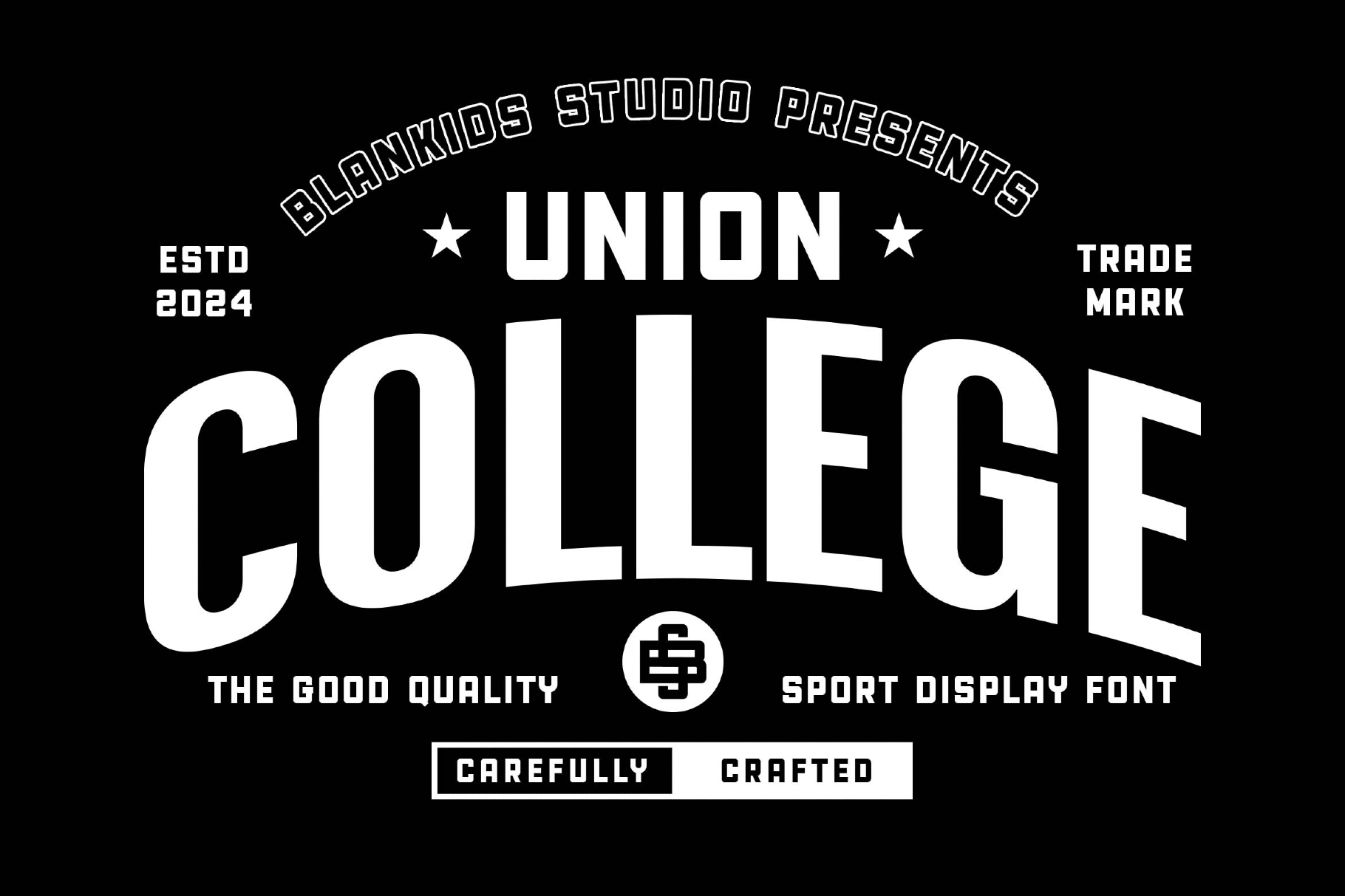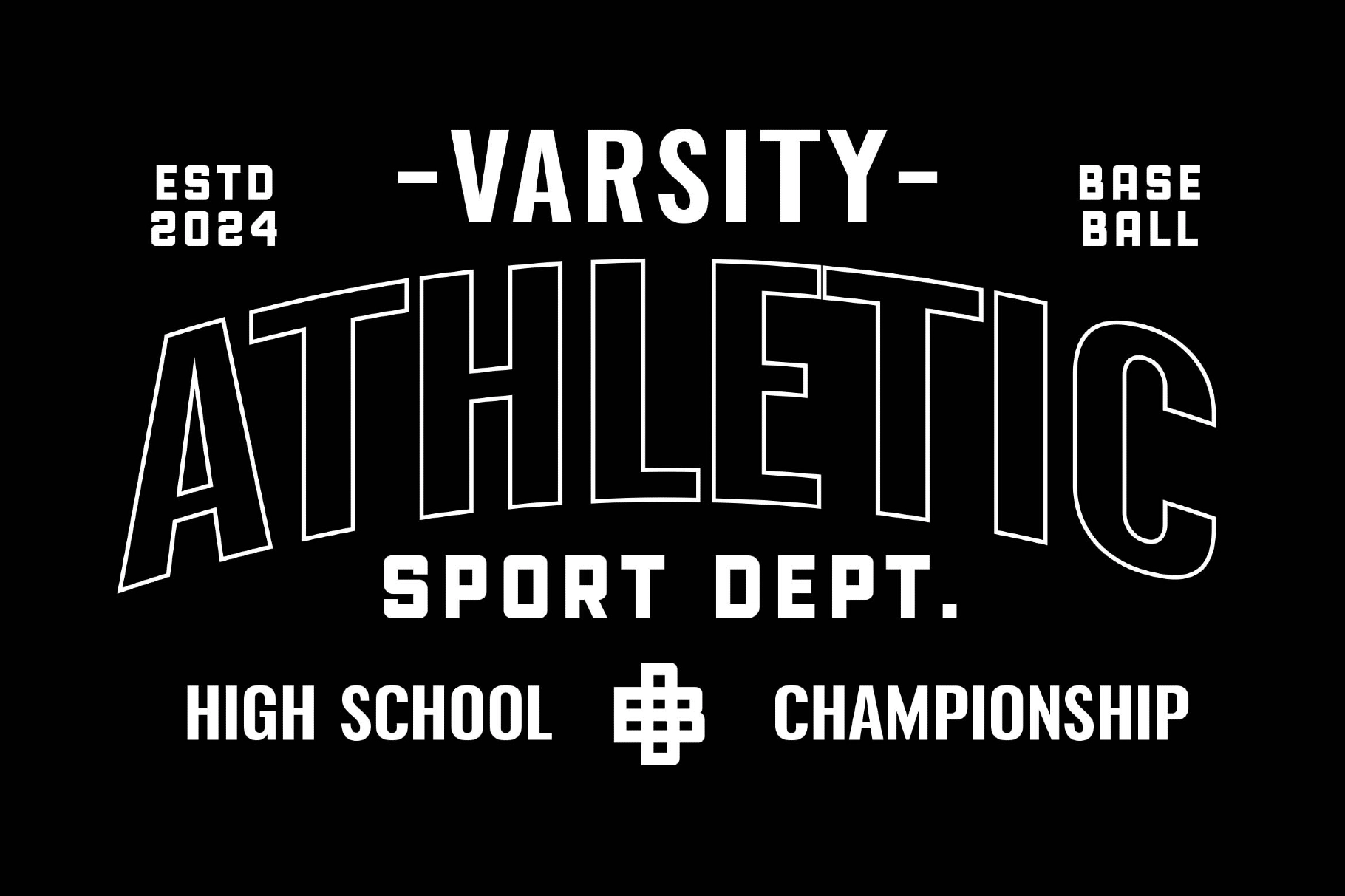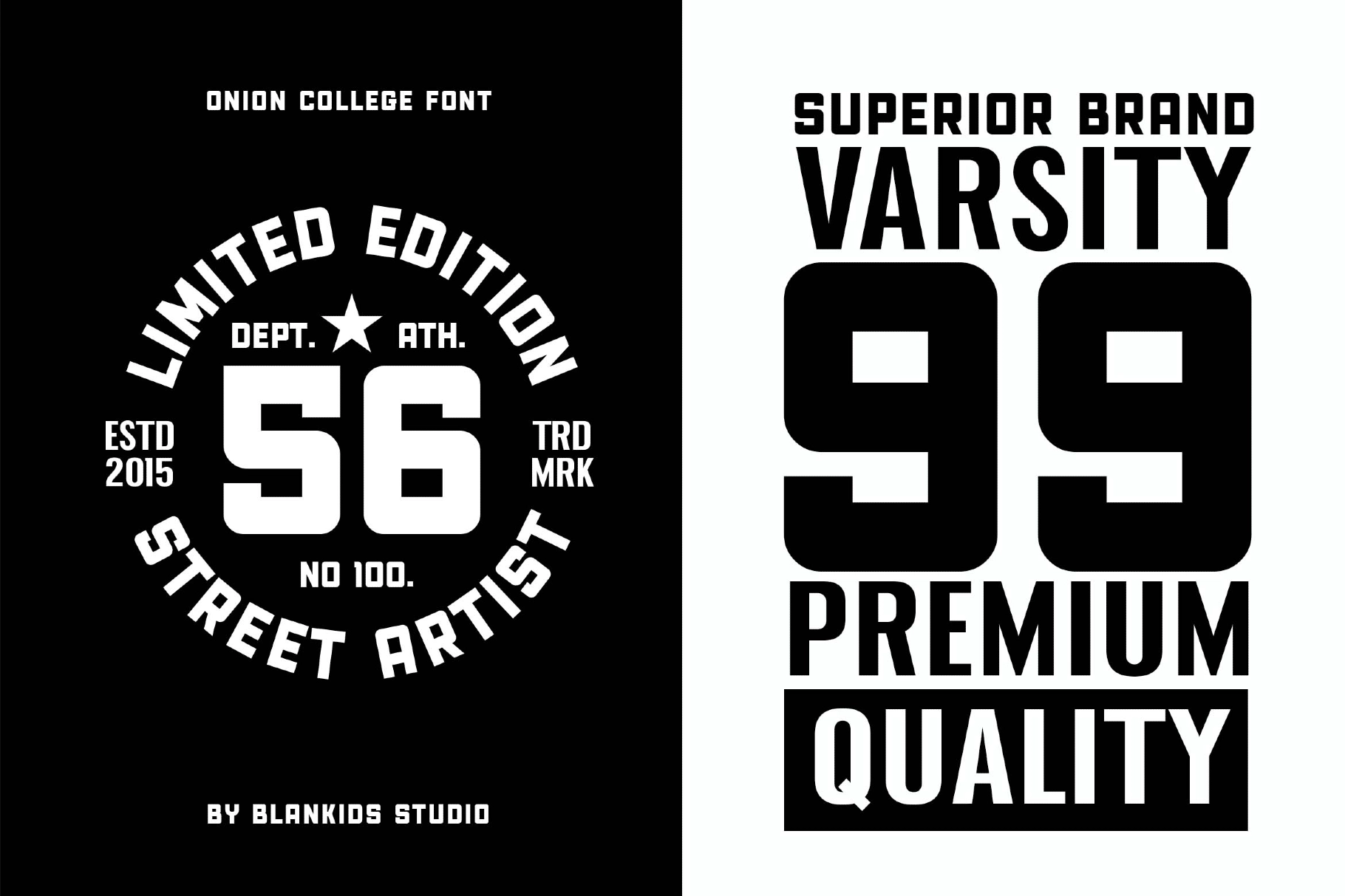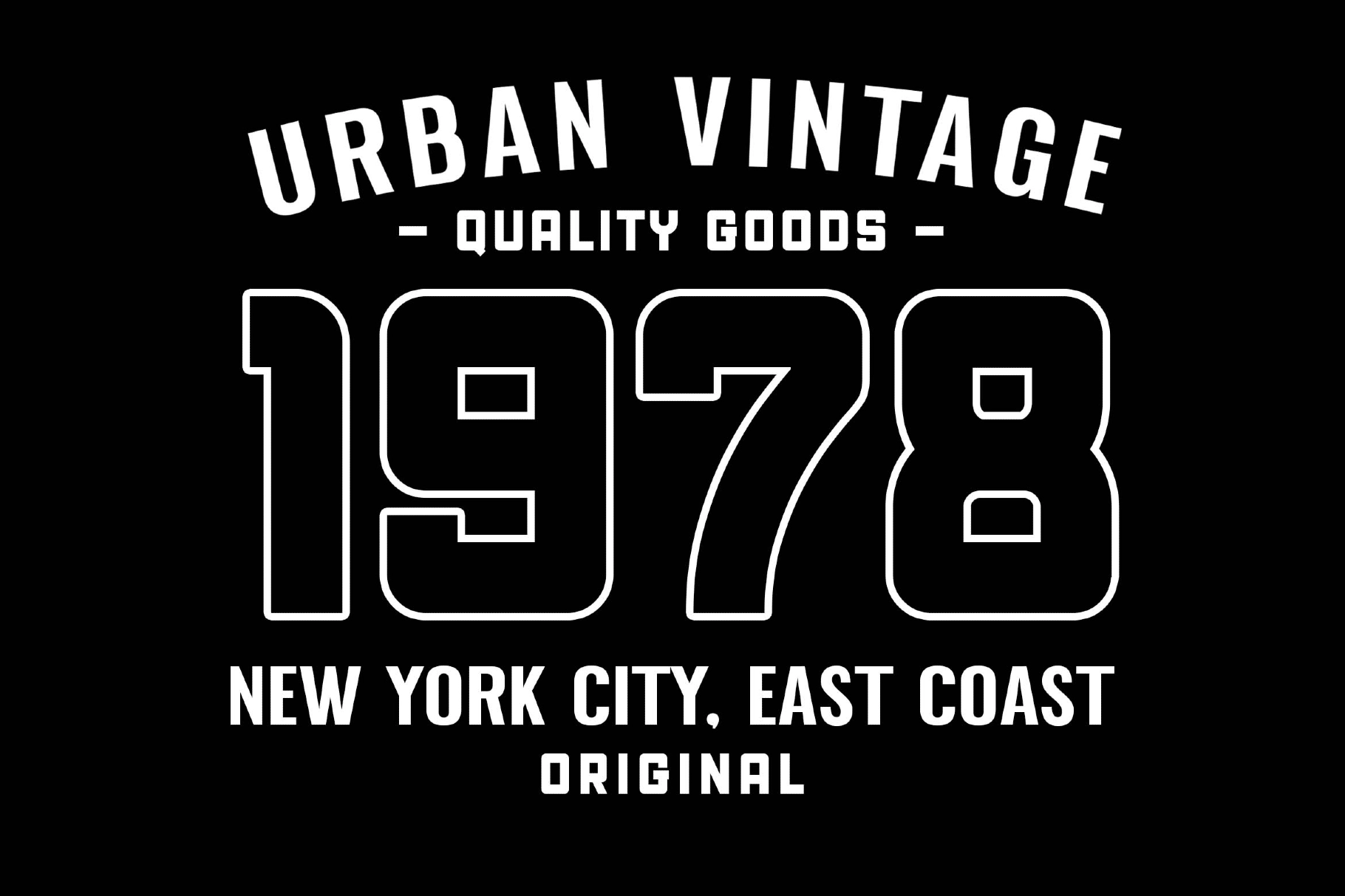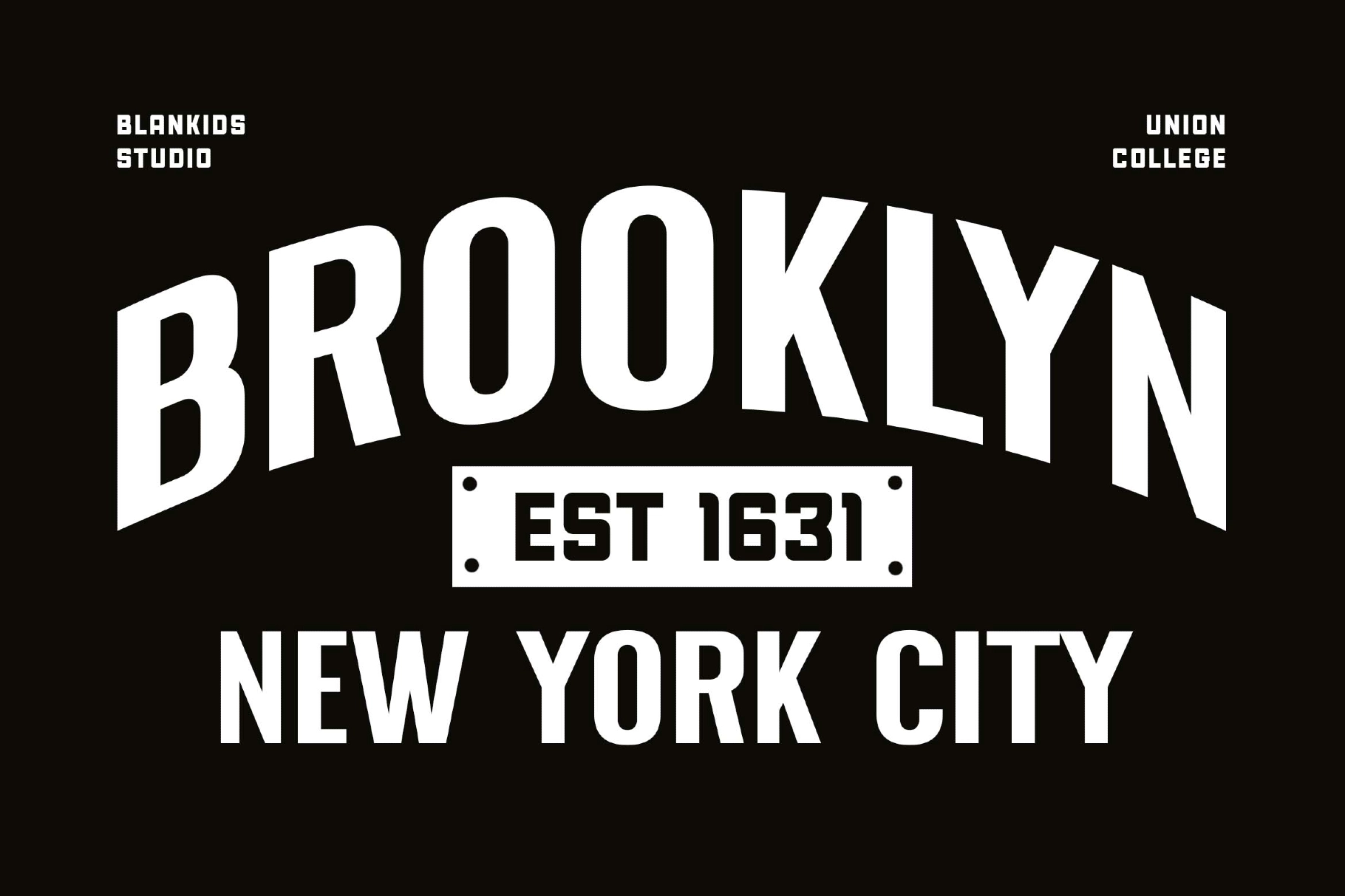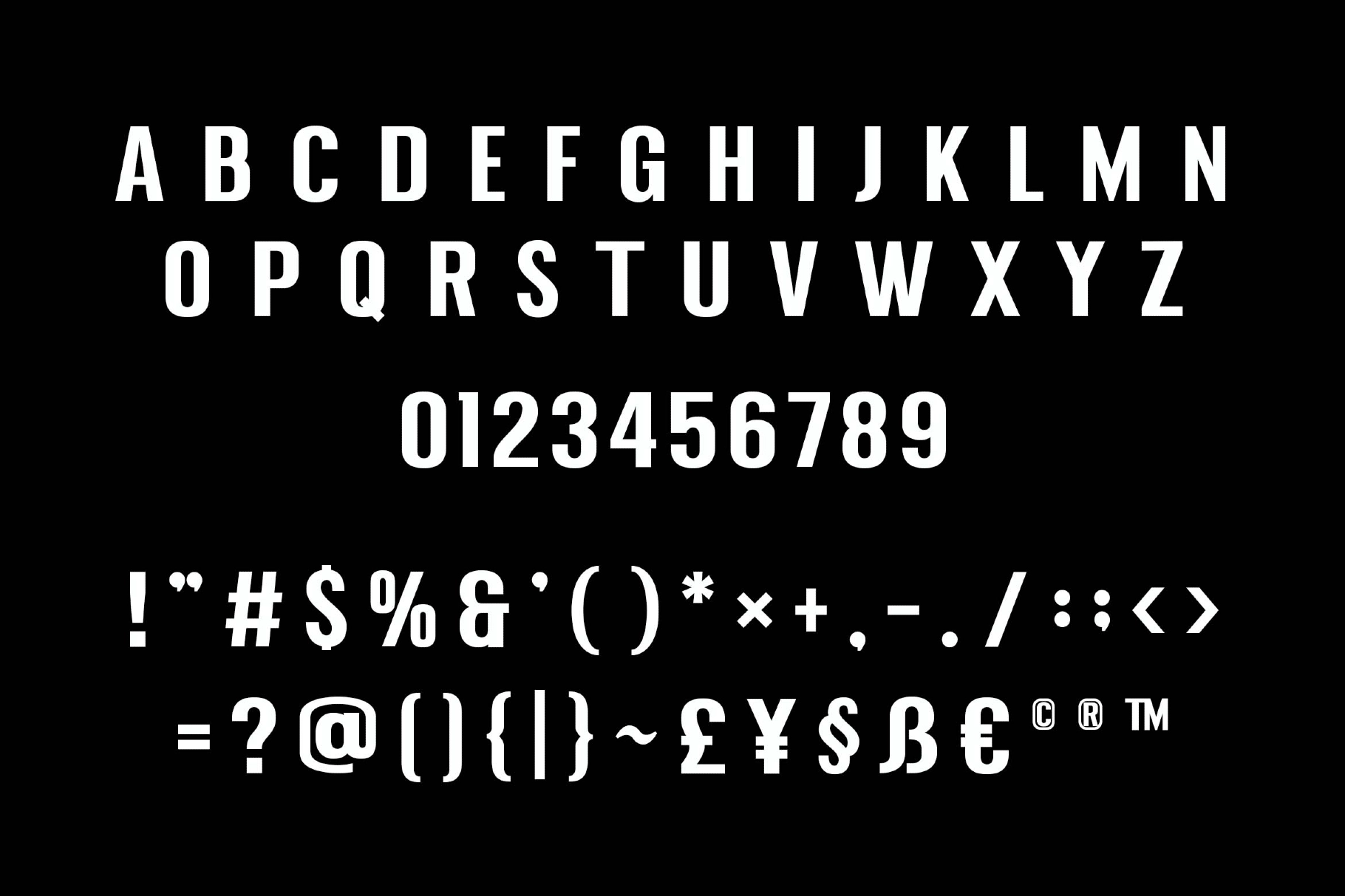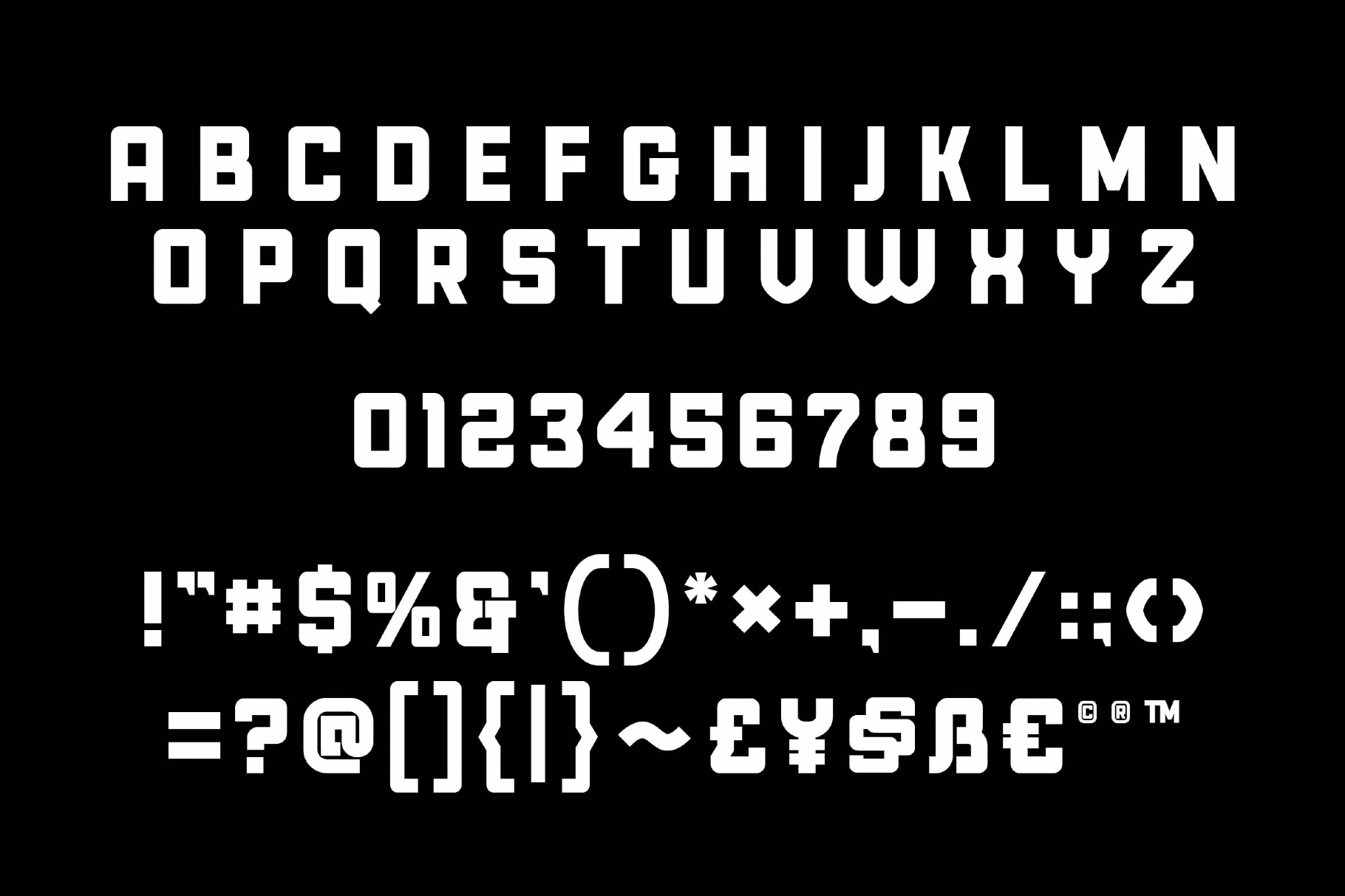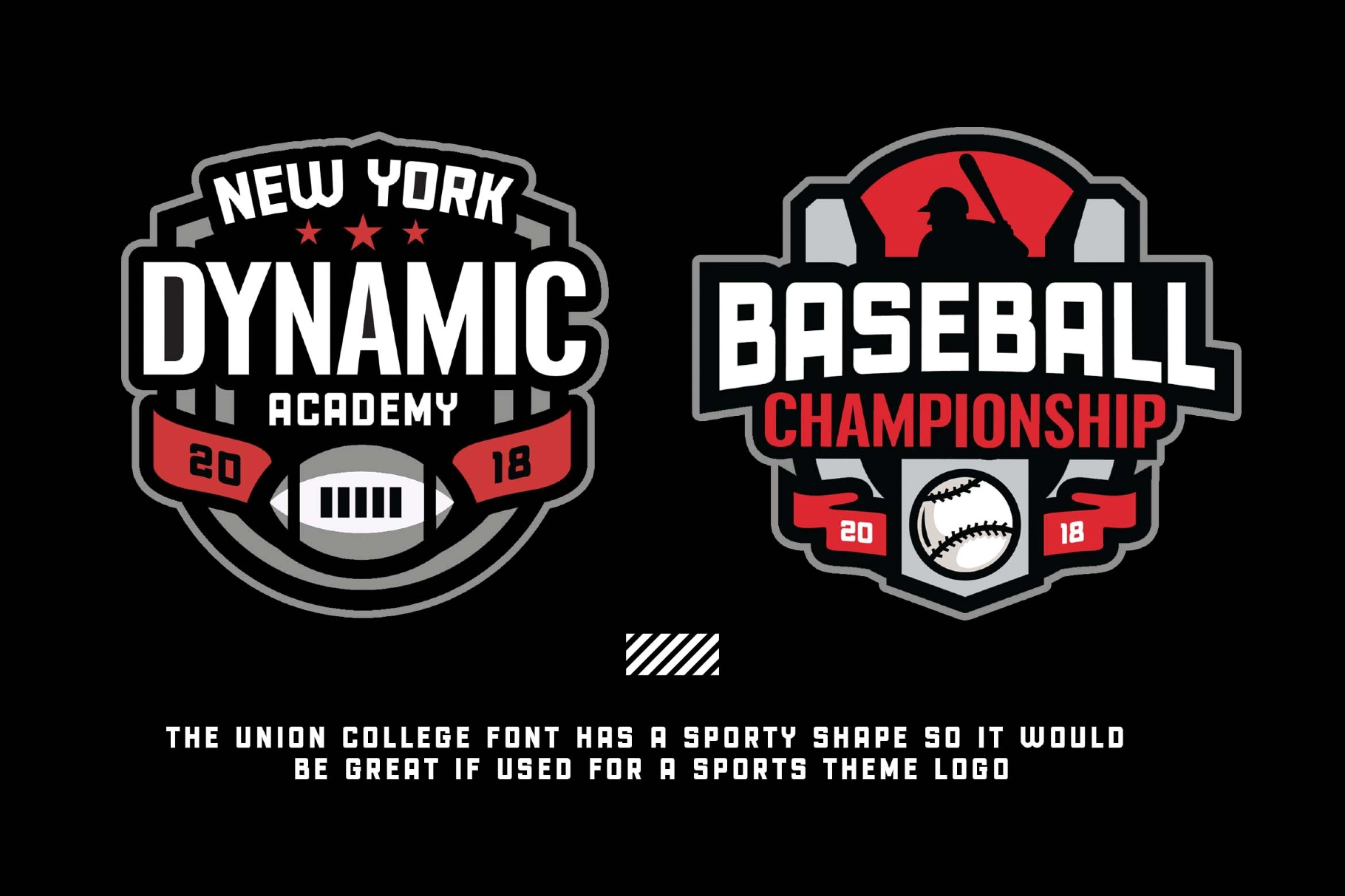
Union College a Sporty Display Font
Union College – A Sporty Display Font is designed to bring bold varsity energy to your branding projects. Inspired by classic college lettering and athletic typography, this font delivers a strong, competitive spirit—perfect for logotypes, team branding, posters, merchandise, packaging, and promotional designs.
Each letter features a dynamic sporty structure with authentic collegiate character, making it ideal for school branding, sports events, apparel graphics, gym identities, and bold headline compositions. With two complementary font styles included, you can mix and match to create layered, impactful designs with true varsity attitude.
Union College includes a complete set of uppercase and lowercase letters, numerals, and punctuation—giving you everything you need for powerful display typography.
- Sporty Varsity Display Style
- 2 Font Combinations Included
- Numerals & Punctuation
- Strong Athletic Letterforms
- Ideal for Logos, Apparel & Posters